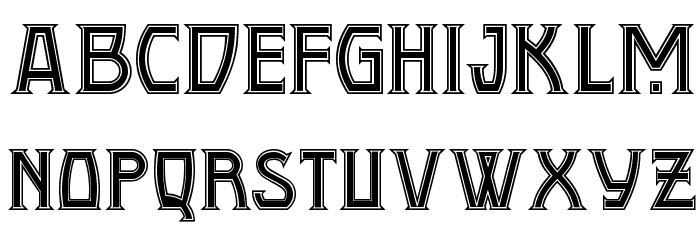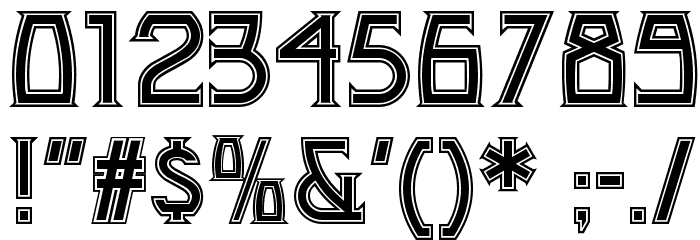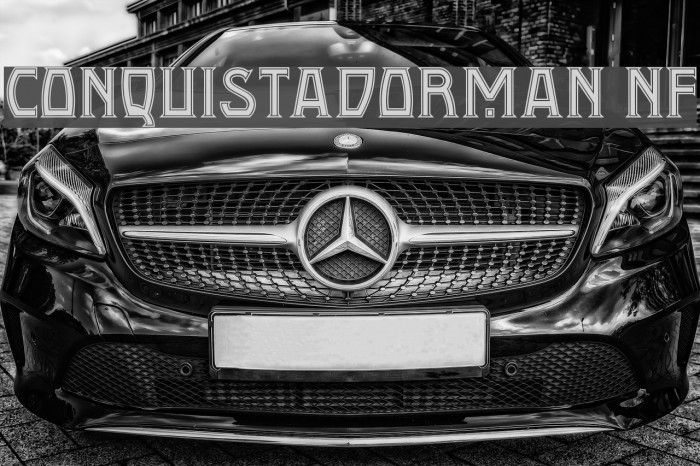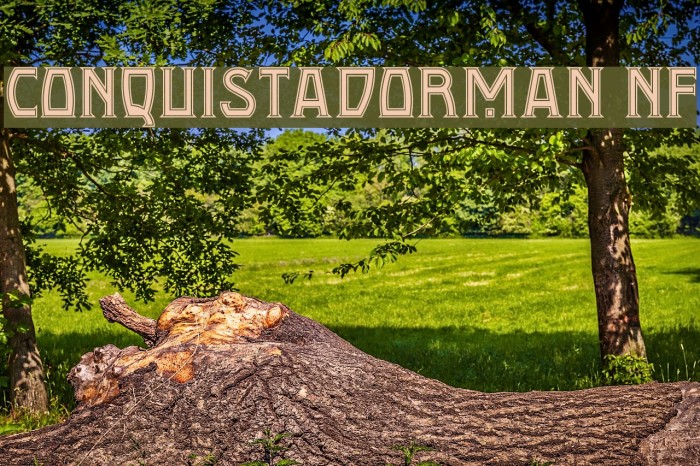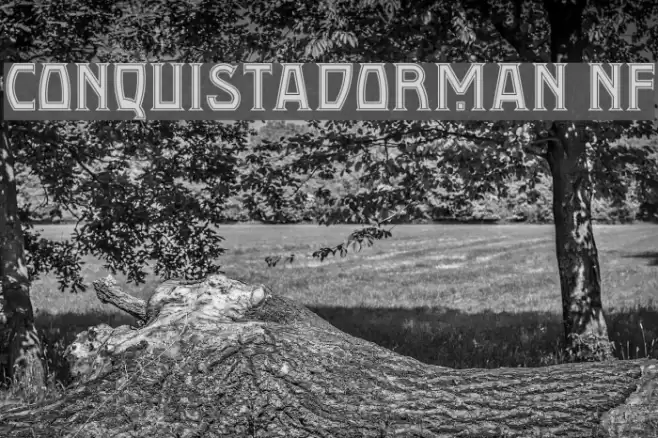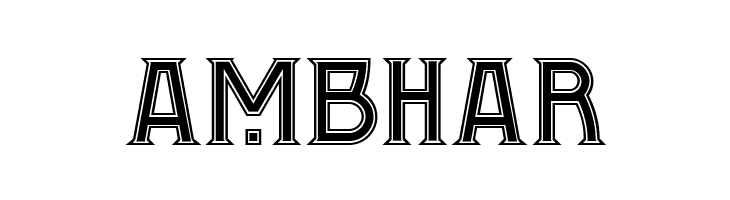
Conquistadorman NF Font
This font features a bold, decorative style with a strong presence. The characters are outlined with a thick border, giving them a three-dimensional appearance. The uppercase letters are particularly striking, with angular lines and sharp serifs that add a sense of strength and authority. The lowercase letters maintain the same boldness, ensuring consistency throughout the typeface. Numbers and special characters are designed with the same attention to detail, making them stand out. This font is ideal for projects that require a commanding and impactful look.
A bold, decorative font with a strong, three-dimensional appearance.
- Font: Conquistadorman NF
- Proposed Projects: Ideal for posters, logos, headlines, and any design that requires a bold, impactful typeface.